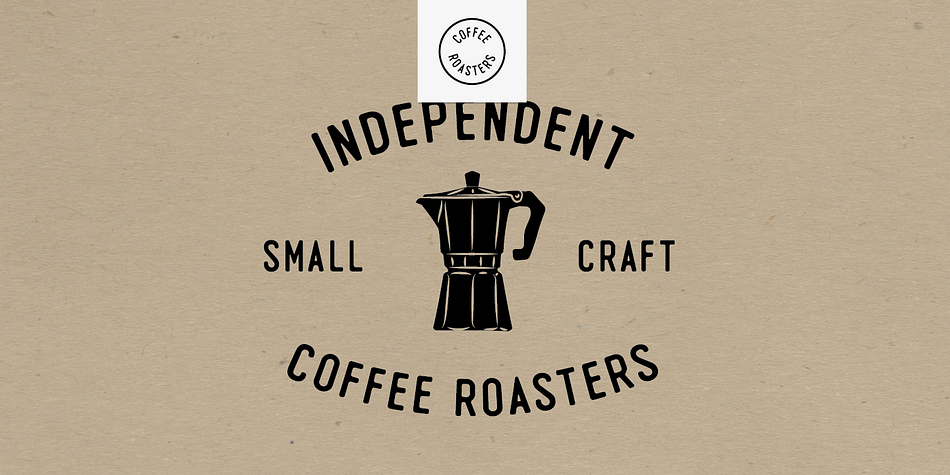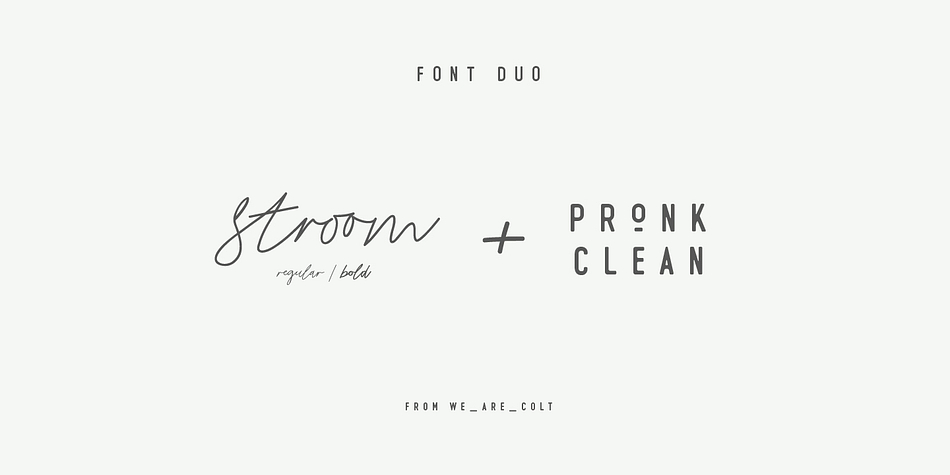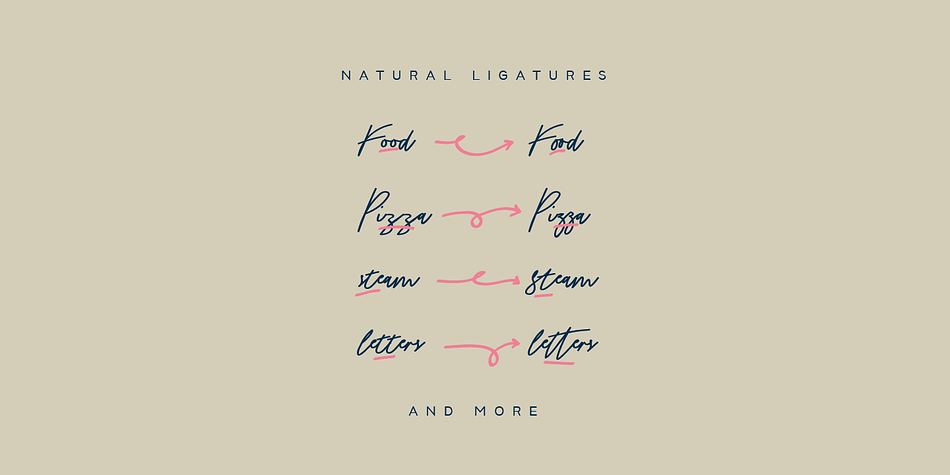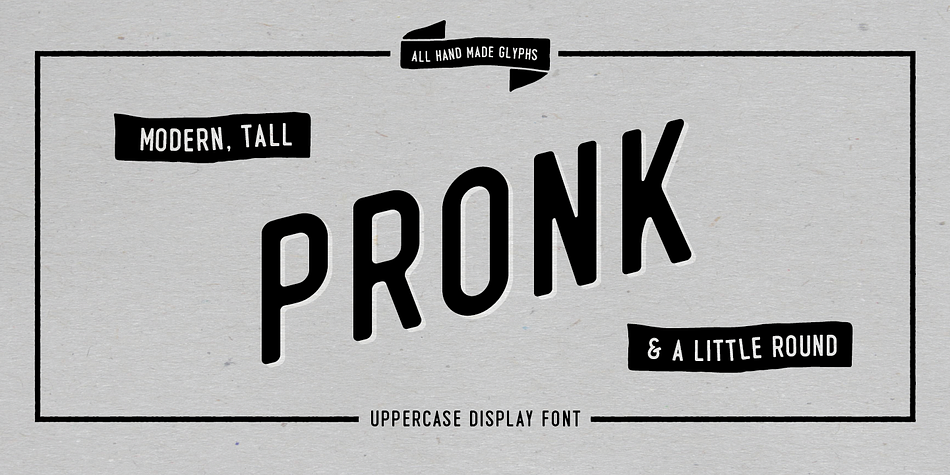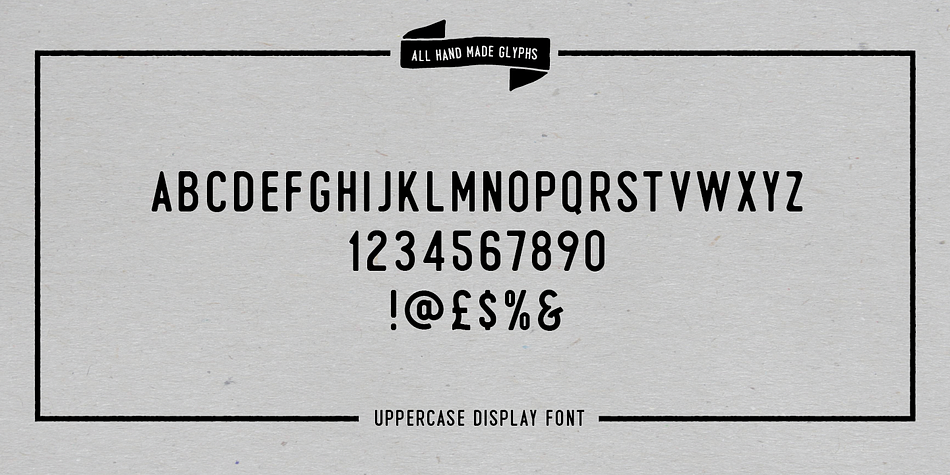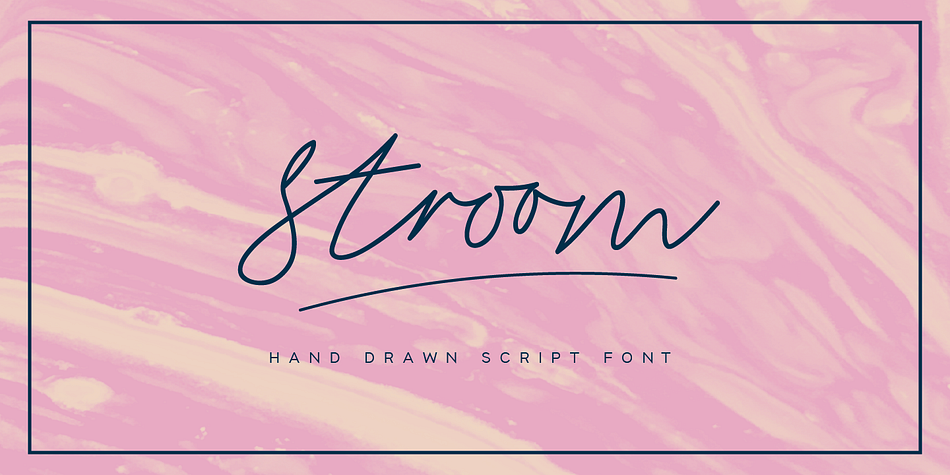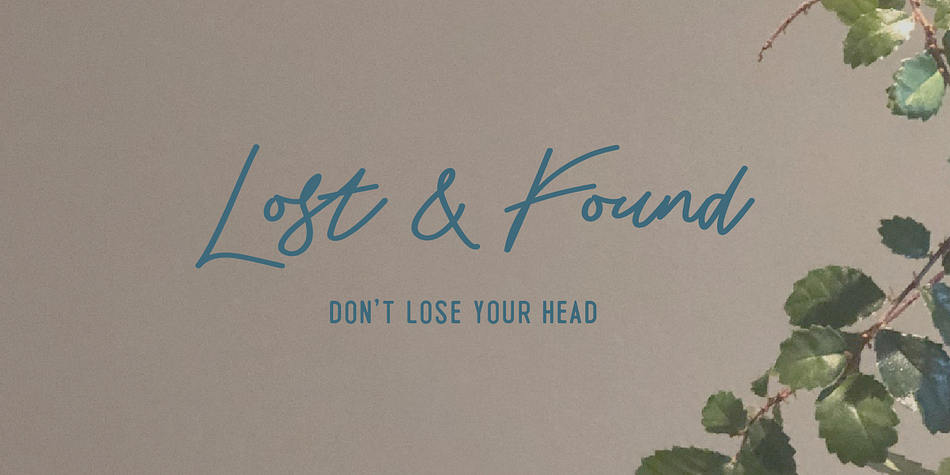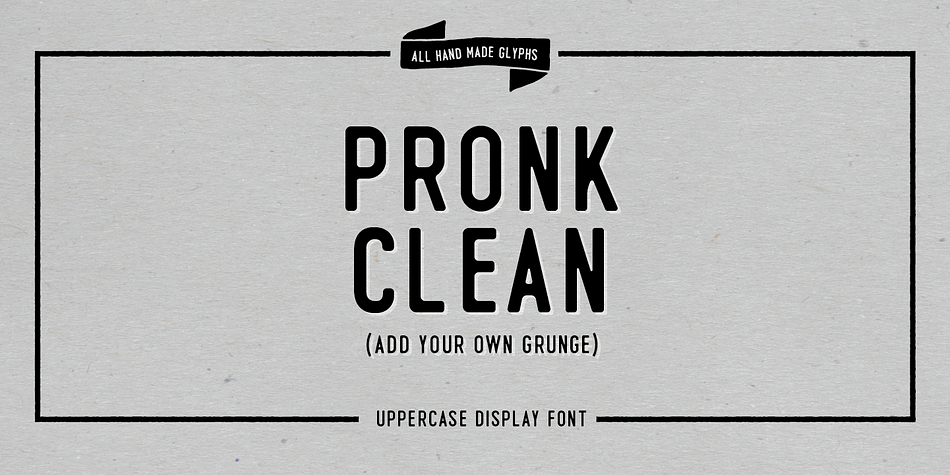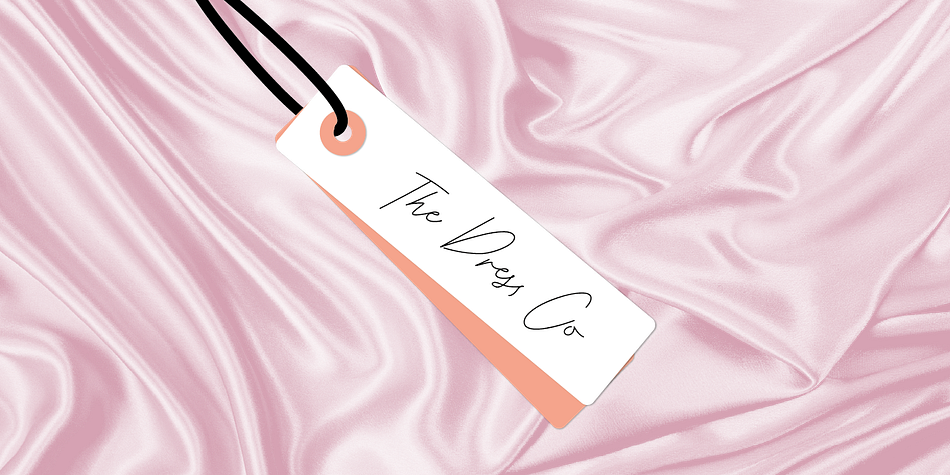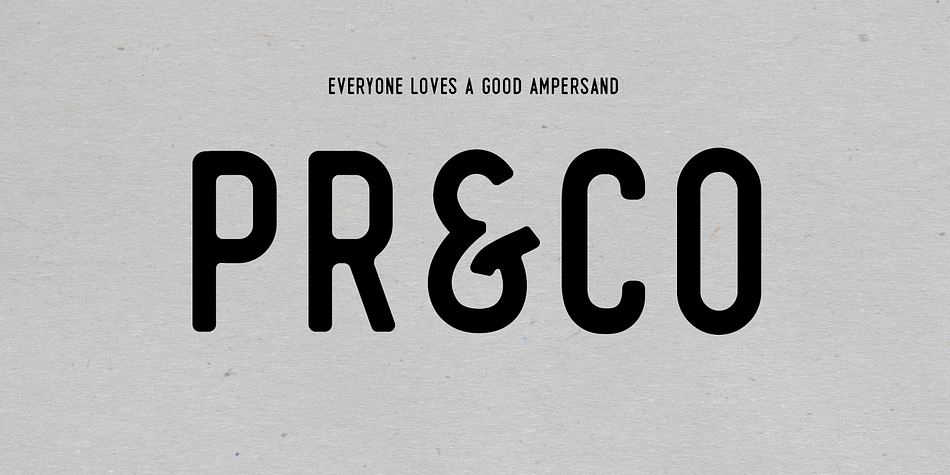
Designed by Adam Greasley, Stroom and Pronk Font Duo is a display sans and script font family. This typeface has three styles and was published by wearecolt.
Introducing the Stroom & Pronk font duo The perfect combination of flowing script and a tall, bold display font.
PRONK FONT - To move forward by leaps and bounds
This is an all caps, tall, bold and round sans serif display font designed for retro-modern designs. This font is perfect for your next logo design or magazine titles.
Taking inspiration from many tall fonts and American number plates I created a display font that would be my ‘go-to’ for a neat tall, bold font. I also wanted something which would take a good amount of treatment like stamp effects and grunge.
Pronk works brilliantly as a pegboard font and for neon lettering.
STROOM SCRIPT - the act of flowing
Stroom was created from a natural handwritten script which makes for a great display font with a natural flow. Complete with hand-drawn glyphs and custom linked letters for a unique marker pen look. This is your perfect font for magazine titling, logo marks, signatures, invitations, cards, Instagram posts, and product packaging.
This set includes uppercase and lowercase letters, numerals, a range of punctuation and ligatures. All lowercase letters include beginning and ending swashes. All uppercase letters include beginning swashes which allow you to create an even more authentic custom-feel text.
When paired with Pronk, this font adds a really unique and elegant finish to your project.